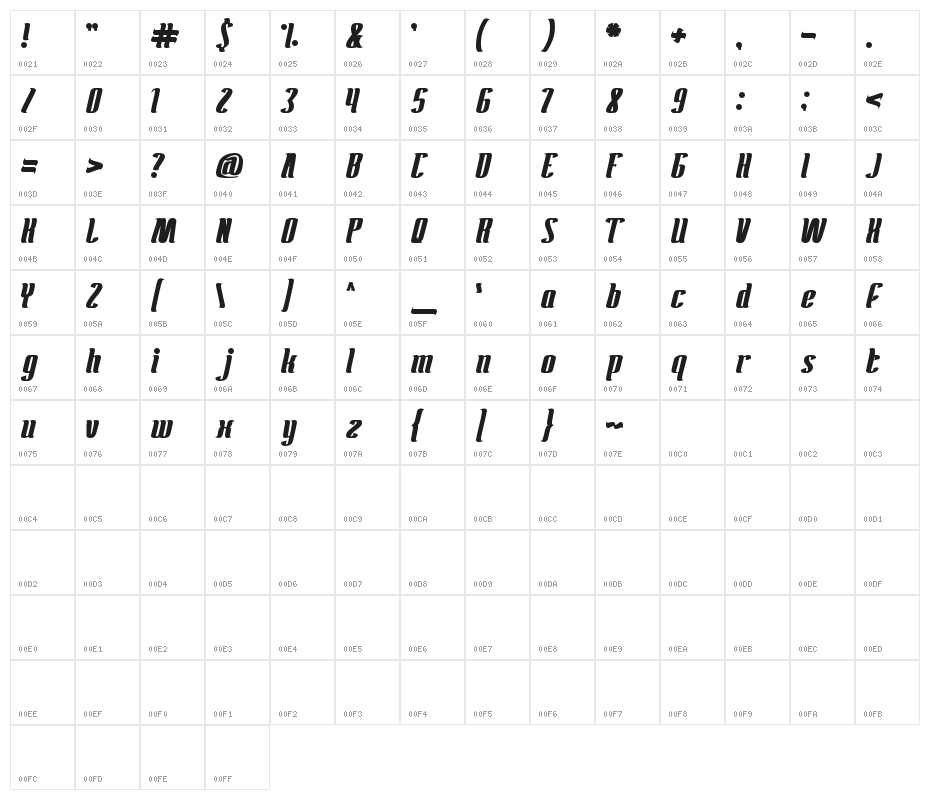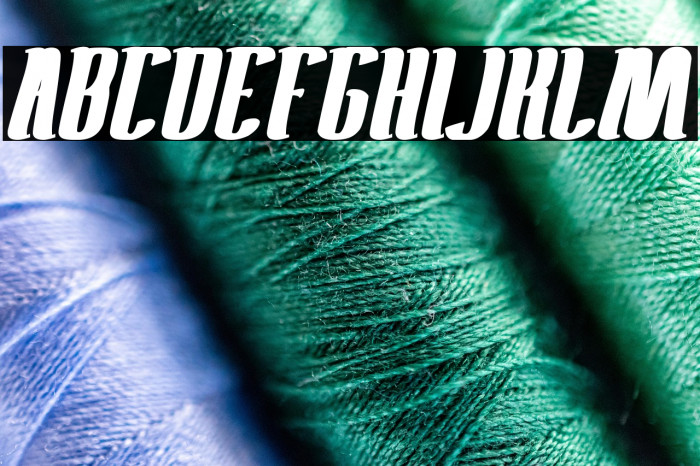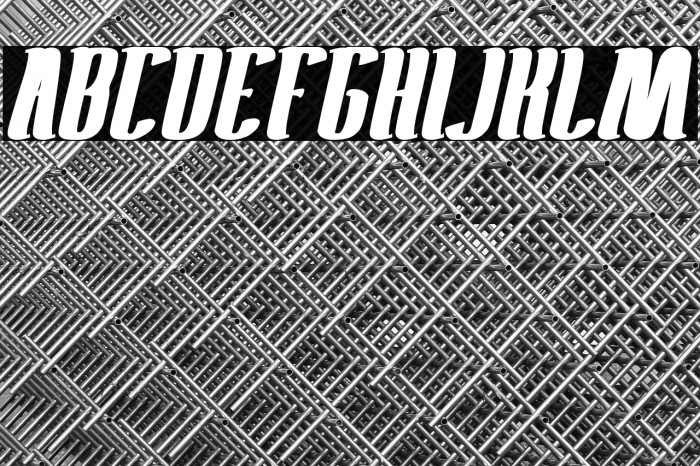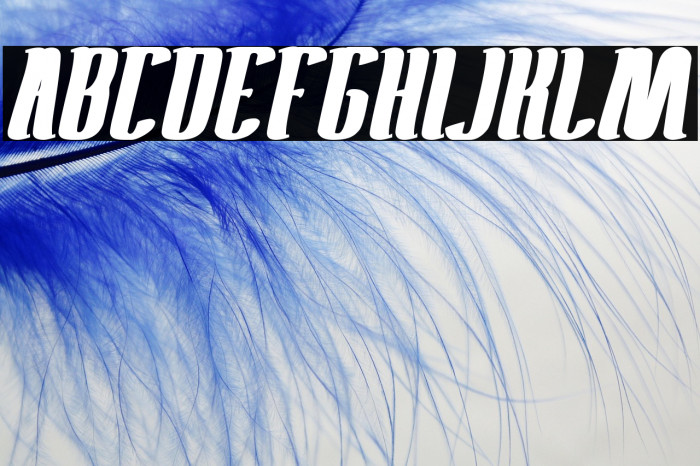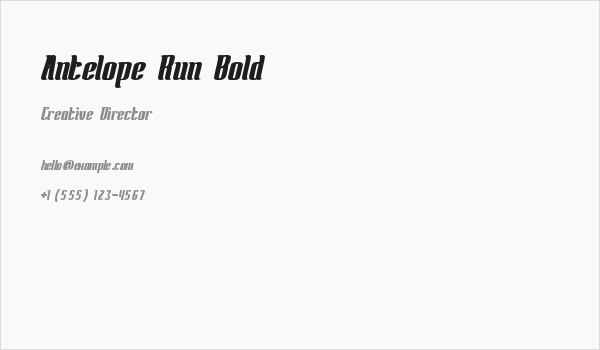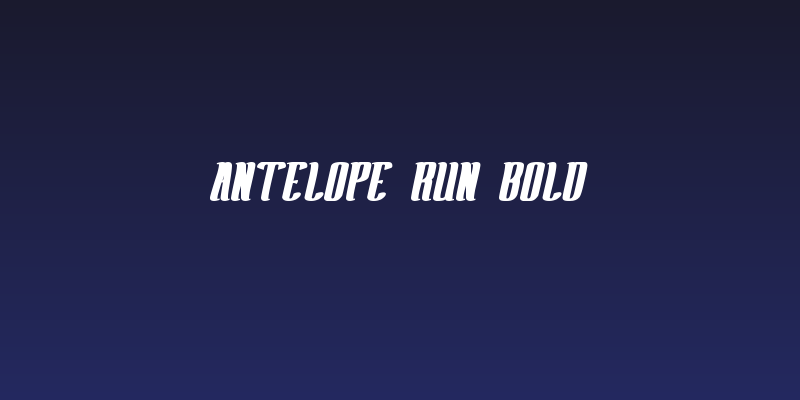
Antelope Run Bold Font
Antelope Run Bold Description
This bold and dynamic font features a strong, italicized style with thick strokes and a slight slant, giving it a sense of movement and energy. The uppercase letters are robust and commanding, while the lowercase letters maintain a consistent flow, enhancing readability. Numbers and special characters are designed with the same boldness, ensuring uniformity across all text elements. The font's unique style makes it stand out, with a modern yet slightly retro feel, perfect for capturing attention.
| Proposed Projects | Ideal for branding, poster design, headlines, and any project requiring a bold statement. |